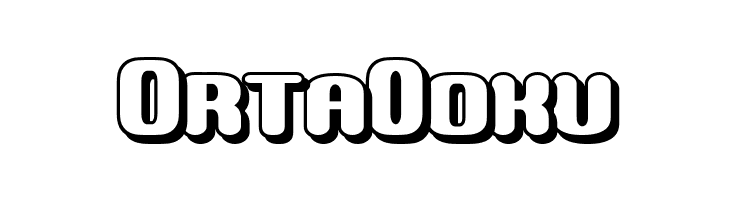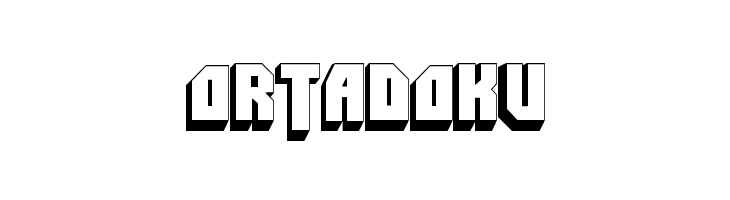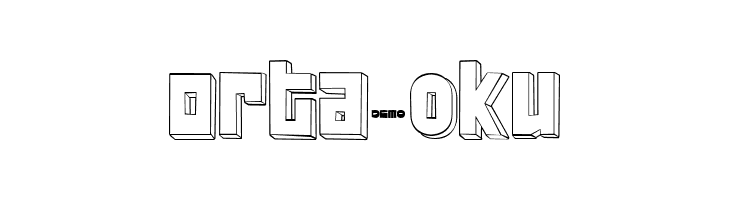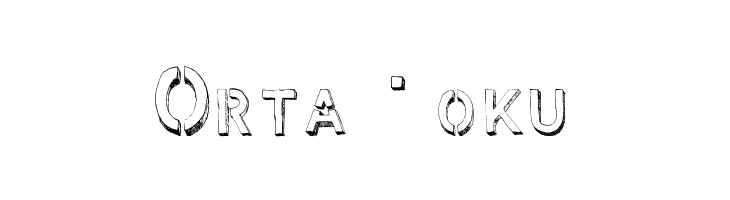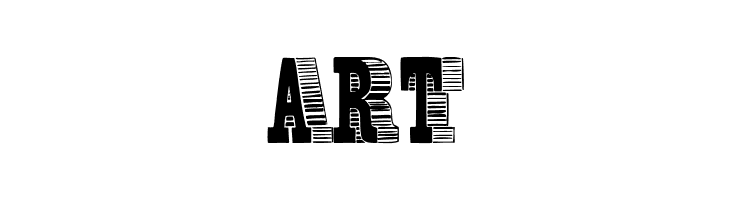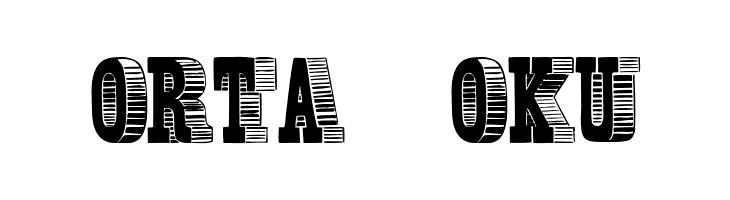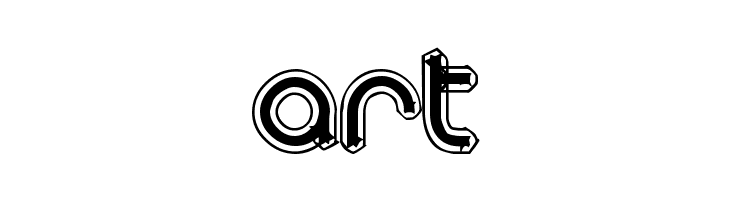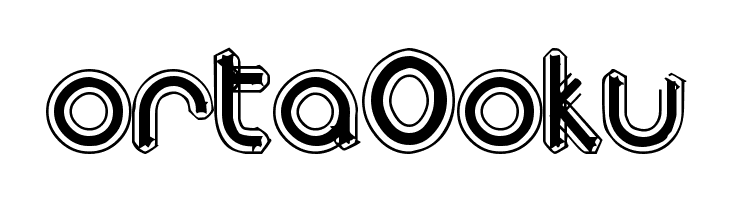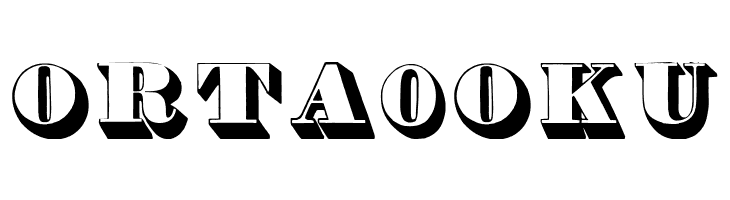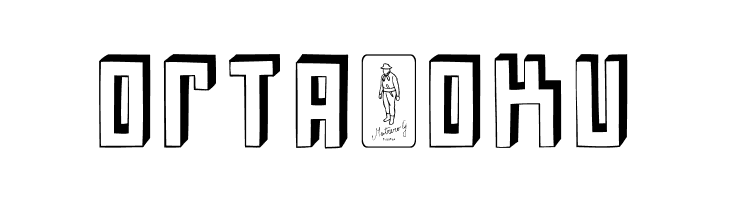
A bold, playful font with a three-dimensional shadow effect.
A bold, three-dimensional block font with a modern, geometric style.
A bold, three-dimensional font with a geometric, architectural style.
A bold, playful font with a three-dimensional shadow effect.
A bold, shaded font with a vintage, three-dimensional style.
A bold, stylized font with sharp edges and a three-dimensional effect.